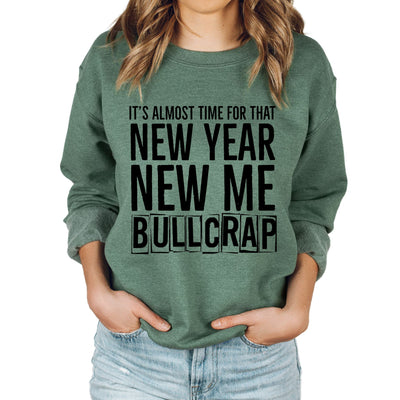
New Year New Me Bullcrap PNG | Anti Resolution Humor | Bold Typography Realistic January Quote
Skip the fake promises with this brutally honest New Year design that speaks to everyone tired of resolution pressure and social media perfectionism culture.
This refreshingly honest design cuts through typical resolution hype with humor that resonates with real people facing January pressure. The bold typography delivers unapologetic messaging while appealing to customers who appreciate authenticity over artificial positivity. Perfect for launches when people feel overwhelmed by resolution culture.
Design Features:
Bold attention-grabbing typography with modern rebellious styling that combines humor with attitude, designed to appeal to people tired of fake positivity and resolution shame.